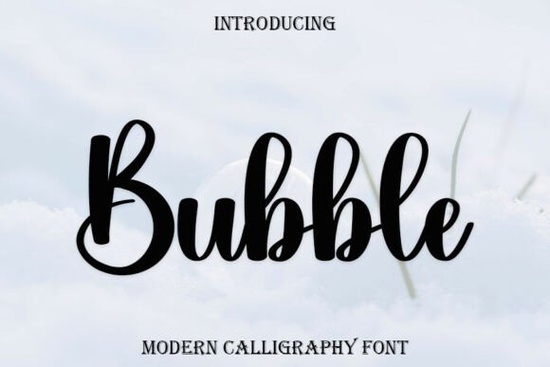
If you're looking for a handwritten script that feels both elegant and approachable, the Bubble Font might be exactly what your next project needs. With its soft curves and gentle flow, this font brings a joyful, romantic vibe without feeling overly formal making it ideal for everything from wedding invitations to boutique branding.
What sets Bubble apart is how effortlessly it balances whimsy and sophistication. Unlike stiff or overly decorative scripts, it reads as natural and friendly, like a note passed between close friends. That warmth makes it especially useful for designers who want their work to feel personal rather than corporate.
Where does Bubble Font work best?
You’ll find this font shines in projects that call for a touch of intimacy and charm:
- Wedding stationery – think save-the-dates, menus, and place cards
- Greeting cards for birthdays, anniversaries, or baby showers
- Small business logos, especially for bakeries, florists, or lifestyle brands
- Fashion lookbooks or product packaging with a handmade aesthetic
- Social media graphics that need personality without clutter
Because it’s a cursive handwritten style, it pairs beautifully with clean sans-serif fonts for contrast. Try combining it with something minimal like Helvetica or Montserrat for headlines and body text, letting Bubble handle the emotional accent like a signature or tagline.
How does it compare to other script fonts?
Not all handwritten fonts deliver the same mood. For example, if you’ve used Tyson Font before, you know it leans bolder and more modern great for streetwear or edgy branding. Bubble, by contrast, is softer and more lyrical, closer in spirit to Lemon Charm Font, which also offers playful elegance but with slightly more bounce and variation.
Tips for using Bubble Font effectively
Handwritten scripts can sometimes reduce readability if overused. To keep your message clear while enjoying Bubble’s charm:
- Use it for short phrases only names, quotes, headlines not paragraphs.
- Avoid tight spacing; give the letters room to breathe so the curls don’t collide.
- Test at small sizes. Some delicate strokes may disappear on tiny labels or mobile screens.
- Stick to one script per design. Mixing multiple cursive fonts often creates visual noise.
Also, remember that context matters. A luxury skincare brand might use Bubble for a limited-edition label to suggest care and tenderness, while a kids’ party planner could use it for cheerful banners. The same font, two very different but equally valid applications.
Who should consider this font?
This isn’t just for professional graphic designers. Print-on-demand sellers can add Bubble to mugs, tote bags, or wall art for that “hand-lettered” appeal customers love. Crafters making vinyl decals or embroidery patterns will appreciate how cleanly the curves translate. Even small business owners designing their own Instagram stories can elevate their visuals without hiring a designer.
The key is matching the font’s personality to your brand voice. If your tone is warm, optimistic, and slightly nostalgic, Bubble complements that naturally.
Before you download, ask yourself: Does my audience respond to softness and sincerity? If yes, this font could become a go-to in your creative toolkit.